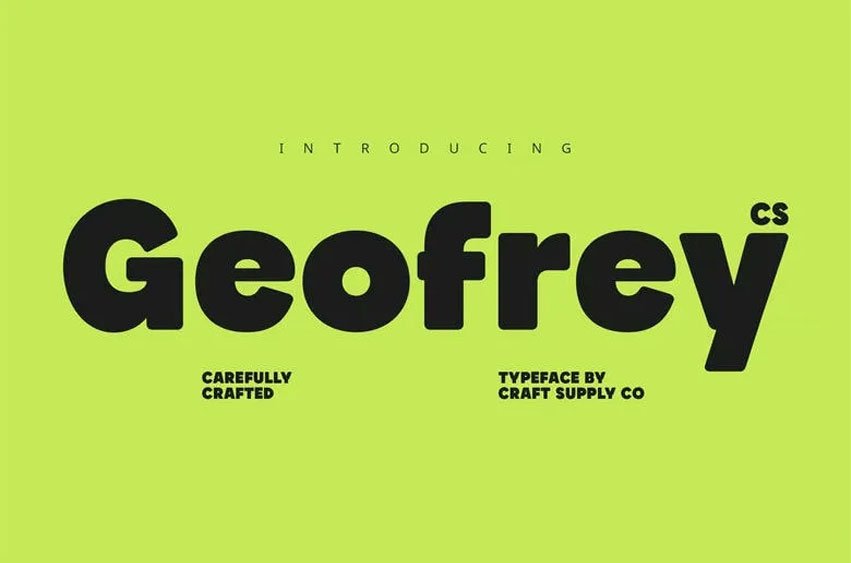
CS Geofrey Font is a very modern, clean, bold sans-serif typeface with a base structure of exact geometric shape. Its solid lines, square character and uniform lettering give it a tangible quality that exudes poise and futuristic style, a quality that is ideal in a contemporary design when simplicity and effectiveness are paramount.
Minimalist, Professional, and Modern This minimalist typeface has strong professional notes that make it versatile in a variety of branding and editing work. Its symmetrical constitution and balanced weight distribution instigates a sense of structure and solidness, though it is still futuristic and has a high-tech composition.
Perfect to use with Tech, Branding, and Posters CS Geofrey is an excellent graphic design to be used in tech start-ups, web-based platforms, gleaming product identity, newspaper or magazine headlines, or innovative poster go design strategies. Be it in screaming headlines or contemporary identity systems, it will send your message across loud and clear and memorable.